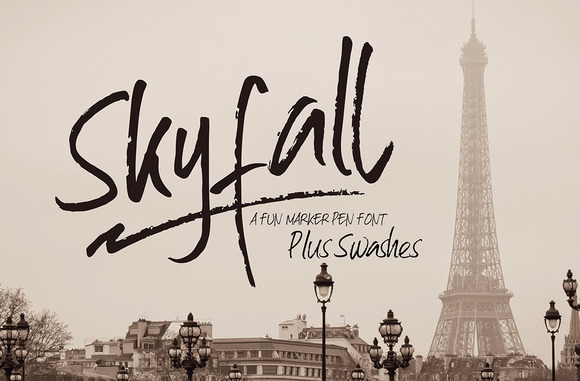
Skyfall Font
Unleash your creativity with Skyfall Font, the ultimate script font that captures the essence of fun and uniqueness. This captivating font, brought to life by the talented Mild Studio, is a delightful blend of quirkiness and versatility, perfect for adding a touch of personality to your designs.
More than just a font, Skyfall Font is an invitation to unleash your imagination. With its hand-made swashes, you'll find endless possibilities to create eye-catching headlines, stunning logos, and enchanting branding materials. Let your creativity soar as you explore the endless possibilities that await.
Skyfall Font is a complete package, equipped with uppercase and lowercase characters, basic punctuation, numerals, and support for international languages. This ensures seamless integration into your projects, whether you're crafting social media posts, designing websites, or creating marketing materials.
Join the creative revolution and elevate your designs with Skyfall Font. Its playful personality and versatility will transform your projects, leaving a lasting impression on your audience. Don't settle for ordinary fonts; embrace the extraordinary with Skyfall Font today.